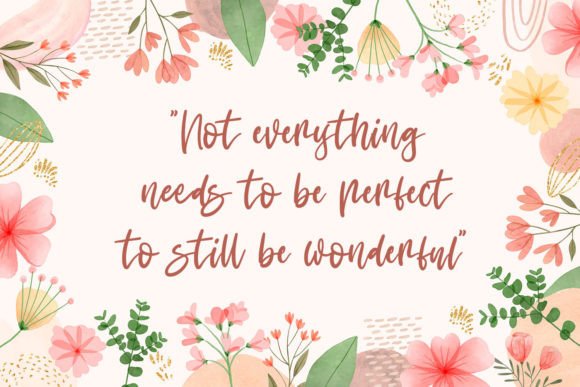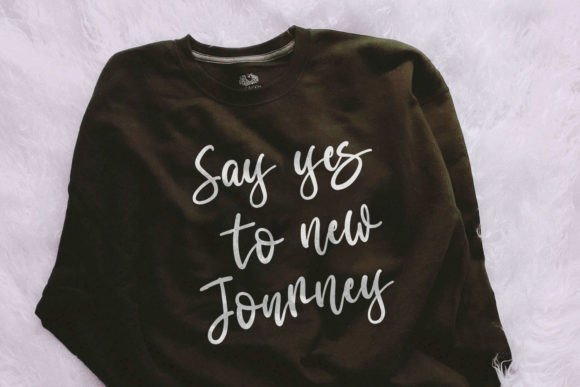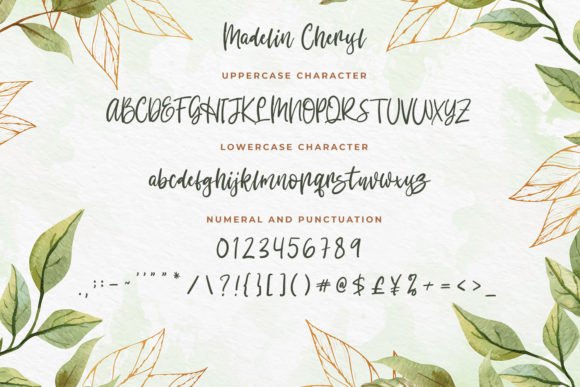
Introduction to Madelin Cheryl Font
Madelin Cheryl is a delicate, elegant, and flowing handwritten font.
It has beautiful and well-balanced characters and as a result, it matches a wide pool of designs .
Key Features of Madelin Cheryl Font